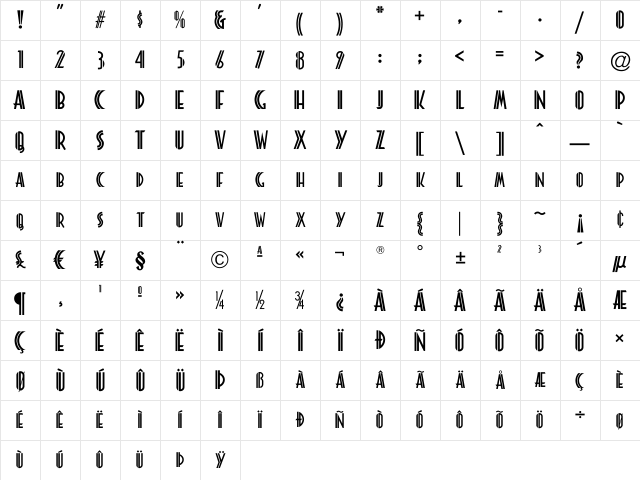
Platonick-Normal Regular Free Font
Platonick-Normal Regular
Platonick-Normal Family
Design Context for Platonick-Normal
Platonick-Normal is a composed and adaptable typeface that performs quietly and consistently across a wide range of design contexts.
Pro Tip: Use Platonick-Normal in both headline and body roles to test its range before committing to a single application.